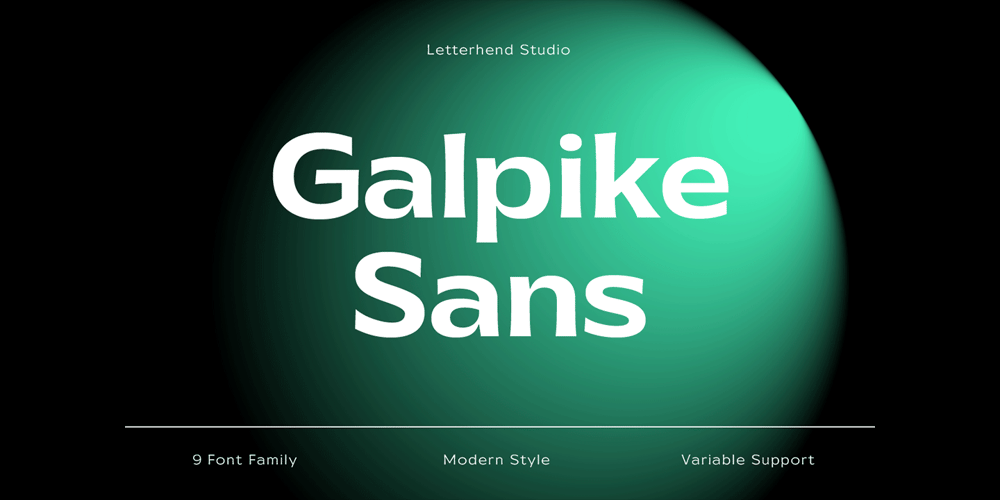
Galpike
Galpike font
Galpike Font Family was designed by Hendry Juanda and published by Letterhend. Galpike contains 9 styles and family package options. Galpike Sans is a neat and clean variable font. The typeface is versatile to blend in your design- with 9 weight, ranging from regular, medium, thin, bold, semibold, extrabold, light, extralight and black & 18 styles + variable type to touch a lot of personality. Perfect anywhere you need a right finas touches for branding, publishing, titles, book, magazine , and use on UI/UX design.Features: Variable Font uppercase & lowercase numbers and punctuation multilingual 9 weight & 18 Style PUA encoded More about variable fonts : https://creativemarket.com/blog/what-is-a-variable-fontif you have any questions don’t hesitate to send our email at letterhend.com/tutorials/using-opentype-feature-in-any-software/